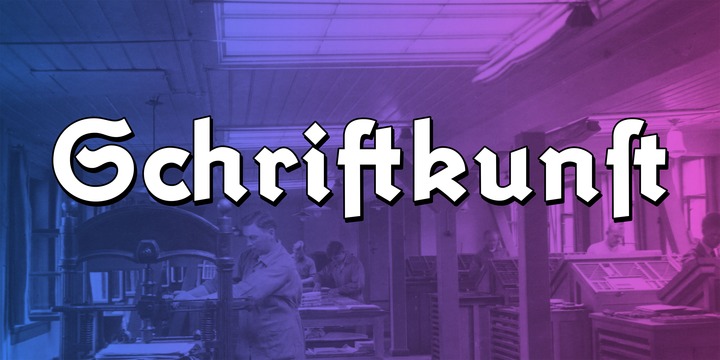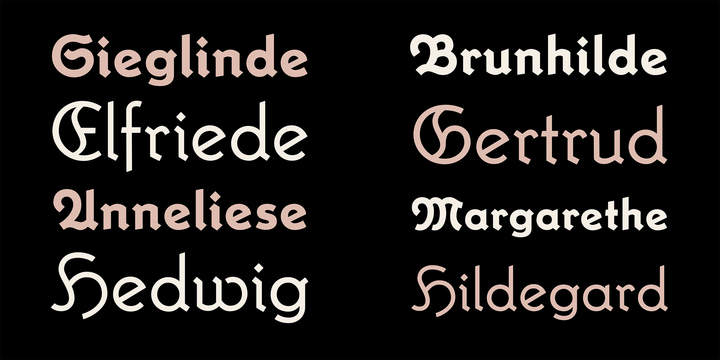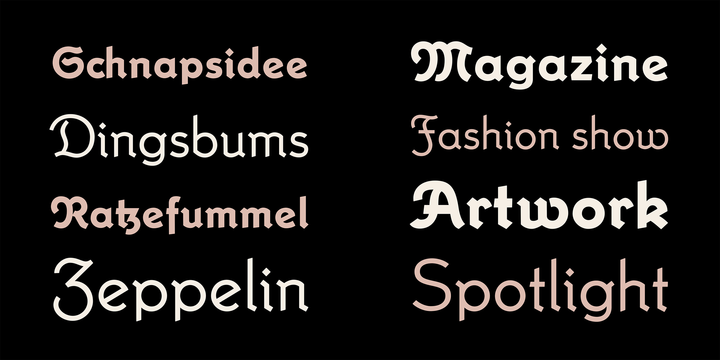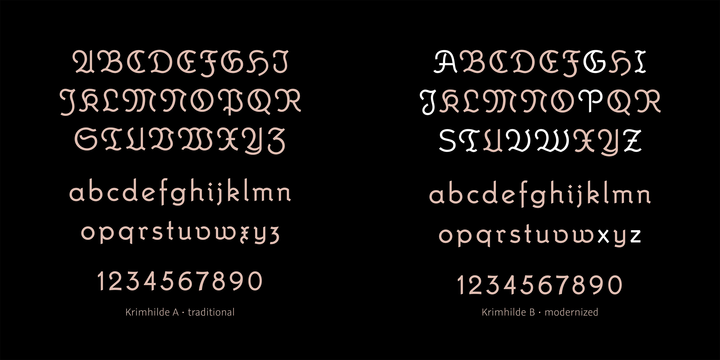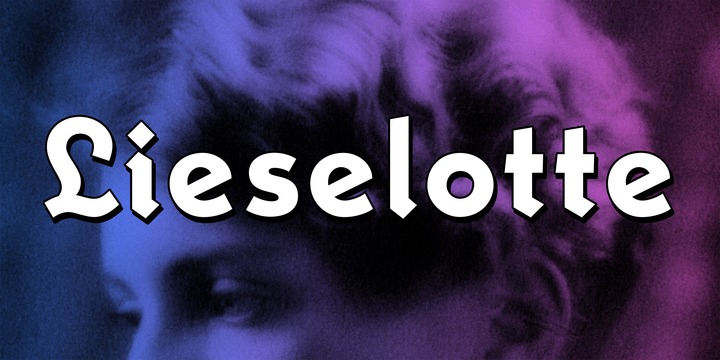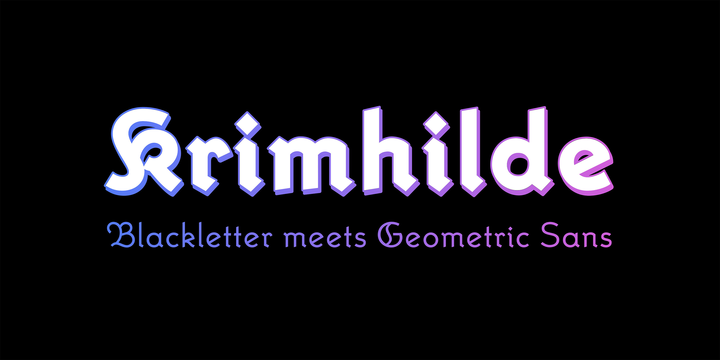
Krimhilde Font Family
Krimhilde was originally designed by Albert Auspurg and released in 1933 with the type foundry Ludwig & Mayer. The design mixes elements of German blackletter typefaces and geometric sans-serif designs, which became popular in the 1920s in the movement known as New Typography.
The FDI version of Krimhilde offers both original styles (regular and bold) as “version A” with a full Latin 1 character set. “Version B” has alternative shapes for some letters to make the design more legible for people who are not familiar with the German blackletter shapes.
In addition, there are optional display styles available (outline, shadow and fill), which can be used separately or together to create a chromatic layout.